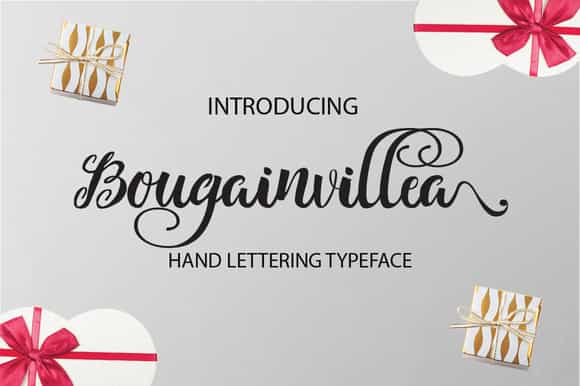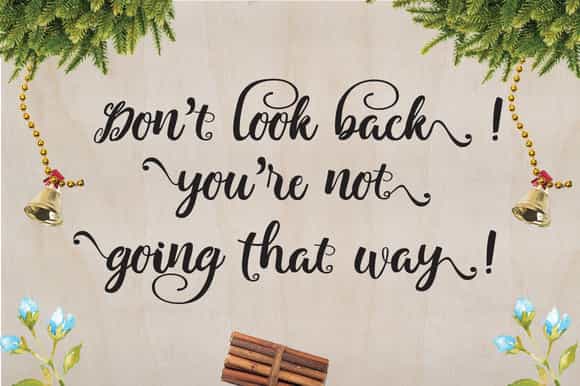
Discover Bougainvillea Calligraphy Font, part of the Calligraphy collection—a versatile and unique font perfect for adding a personal touch to your projects. Download it for free and enjoy crafting designs with style, from invitations to social media posts. This font is available exclusively for personal use, giving you the freedom to create without limits. Unlock your creativity with Bougainvillea Calligraphy Font today!
Bougainvillea is an upscale handwriting script font that may be used in a variety of applications. Bougainvillea is excellent for posters, t-shirts, letterheads, logo’s, labels, wedding invitations, cards, and anything else that comes to mind.